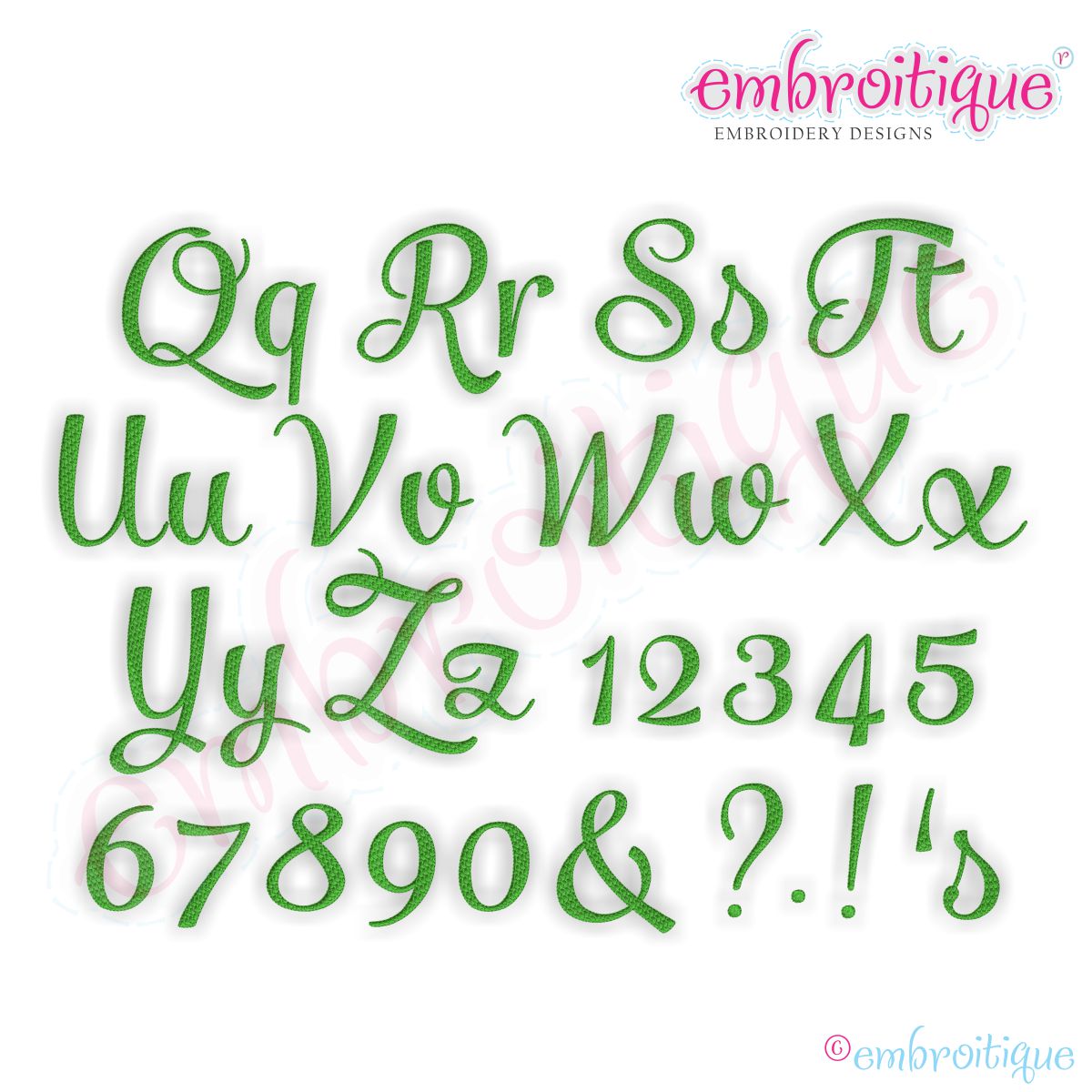
Web First, When You Create Your Word Or Phrase With These Fonts, You Must Do So On Your Tiny Screen On Your Embroidery Machine Which Can Be A Bit Tedious.
Web Small And Formal Embroidery Script Fonts Are Often Used To Stitch Out Longer Messages, Such As Sentimental Messages On Handkerchiefs At Weddings.
Web Elevate The Look Of Your Custom Products And Help Your Group Look Their Best With Our List Of The Top Fonts For Embroidery.
The Columns Of Your Lettering Must Be At Least 1 Millimeter Wide.